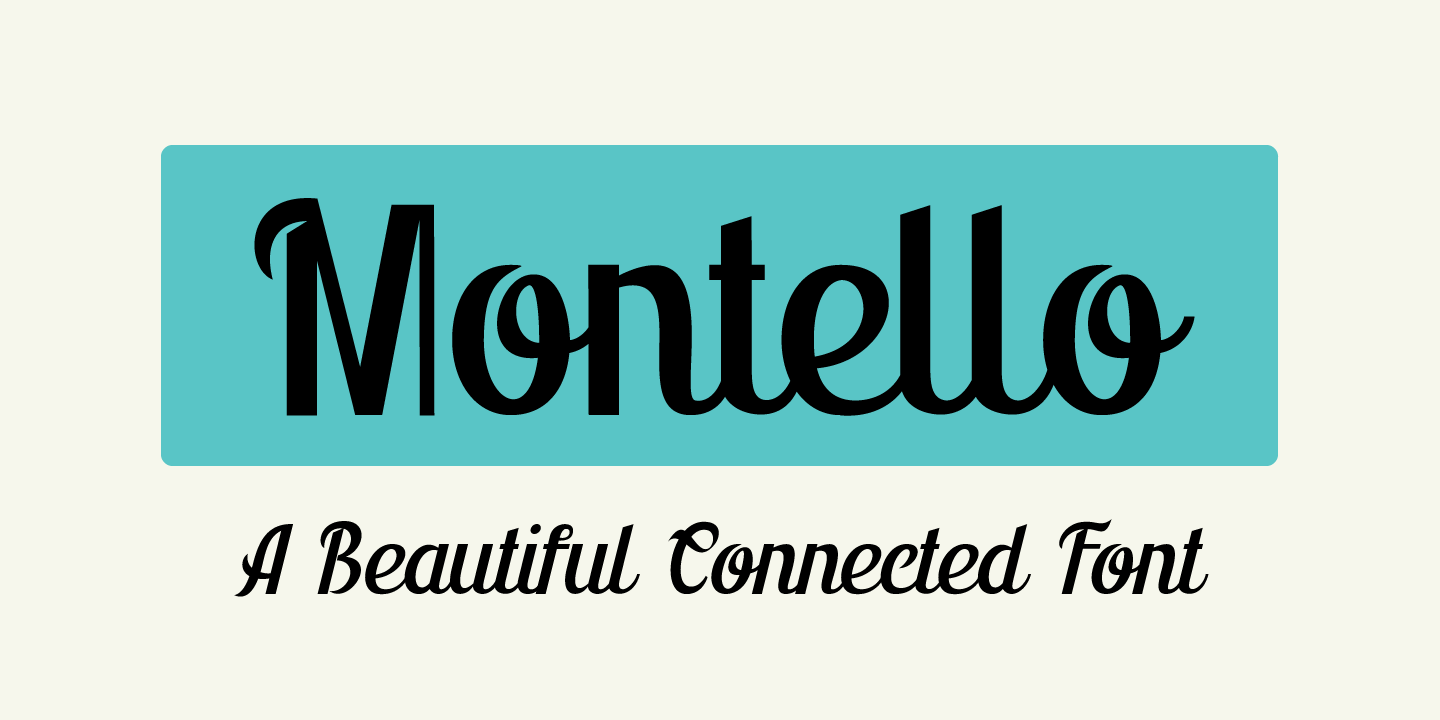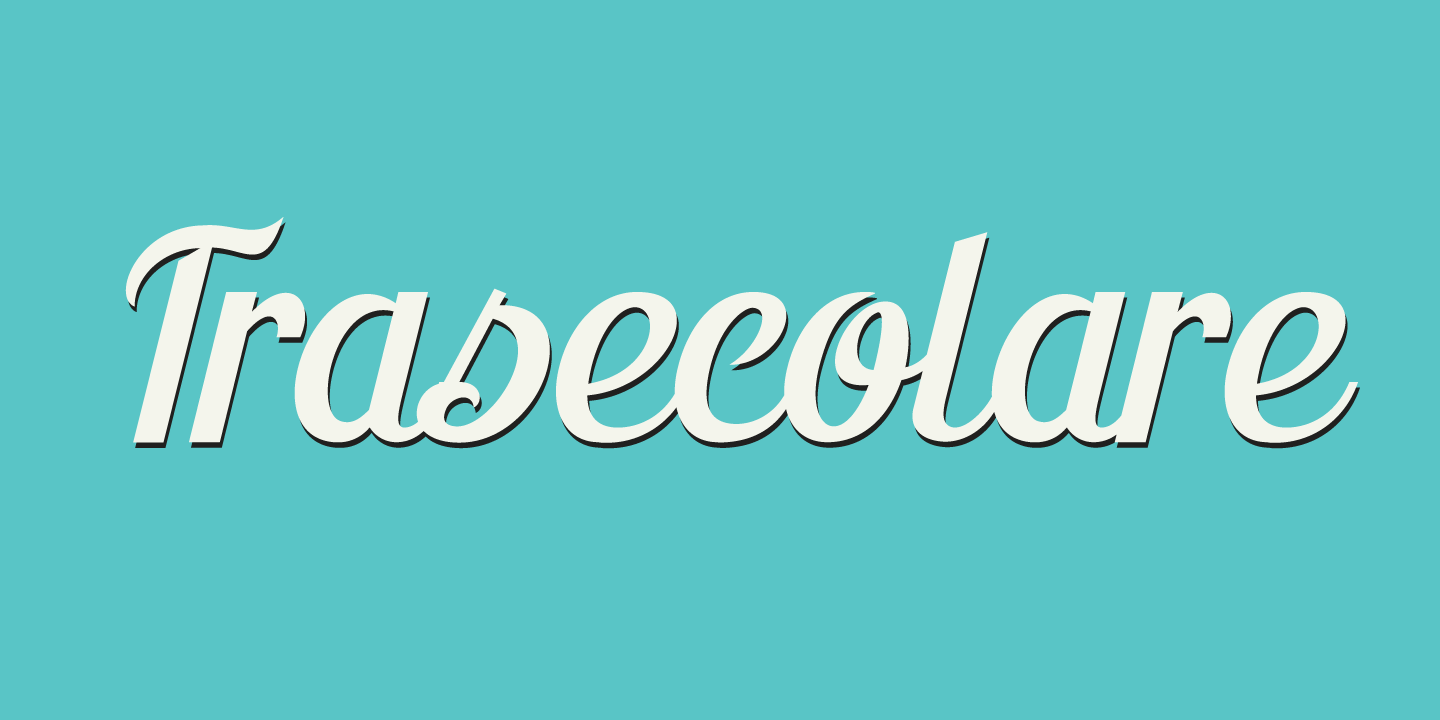
Montello
Montello started out as an Illustrator exercise (a skill I am still learning). I made a couple of glyphs for fun, then realised it would make a nice font. The result is Montello.
Montello is a classic connected script font, very neat and (in my humble opinion) not an eye-sore either. Montello comes with a whole bunch of ligatures for letters that just won't connect nicely.